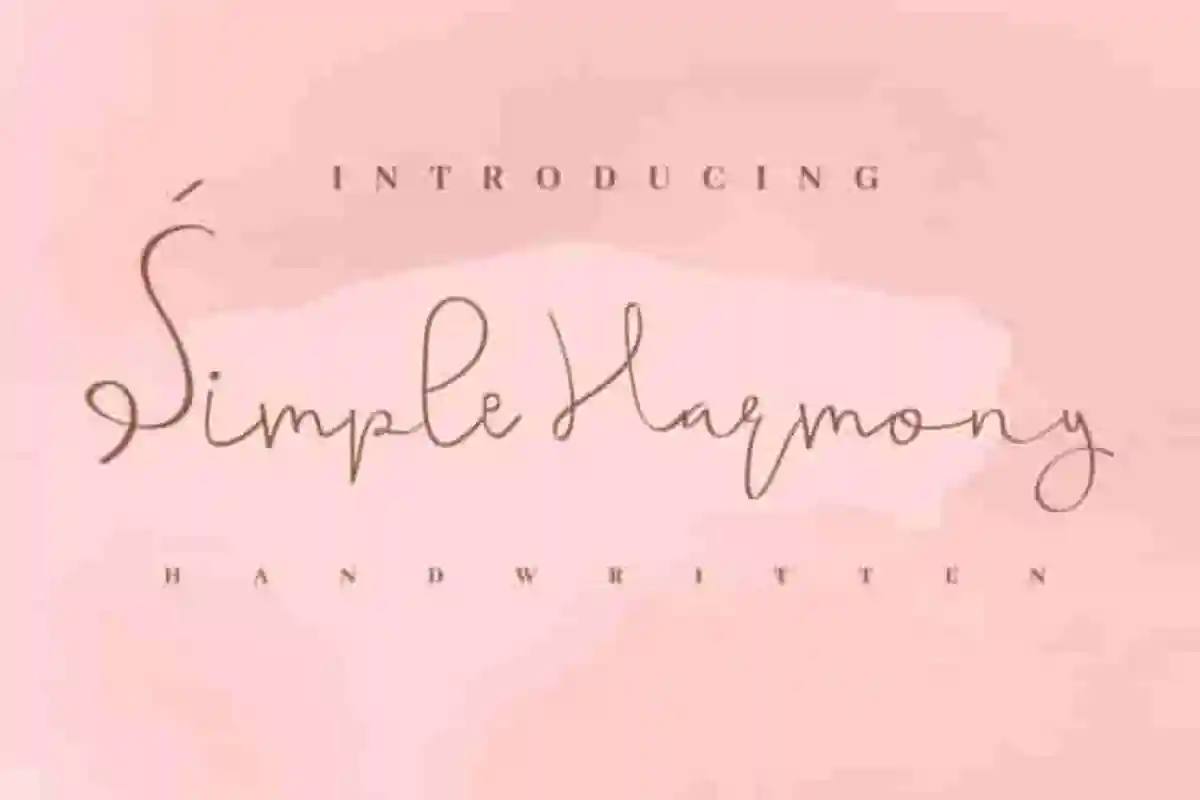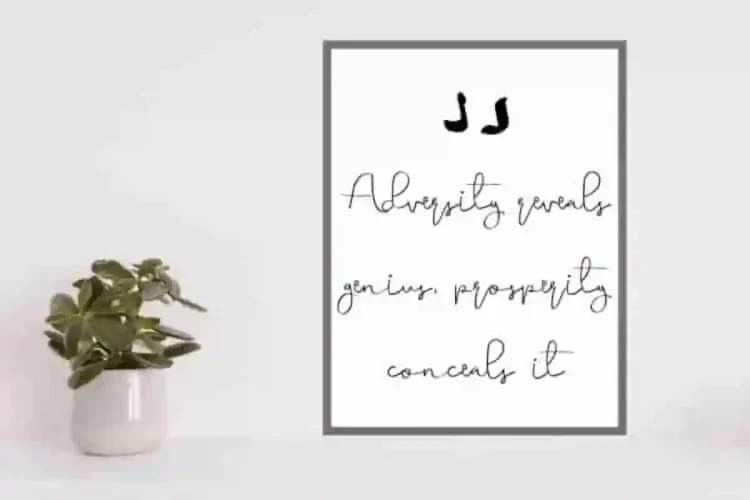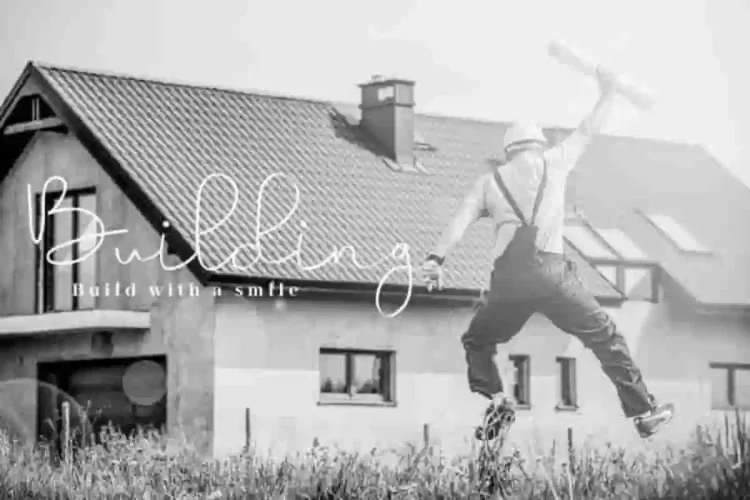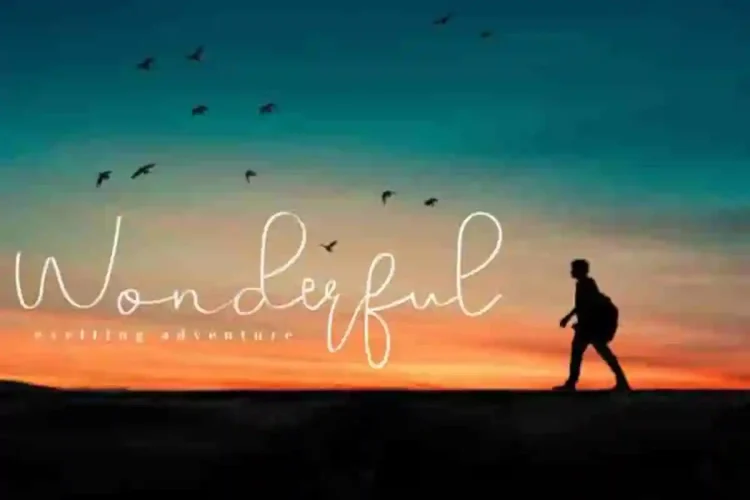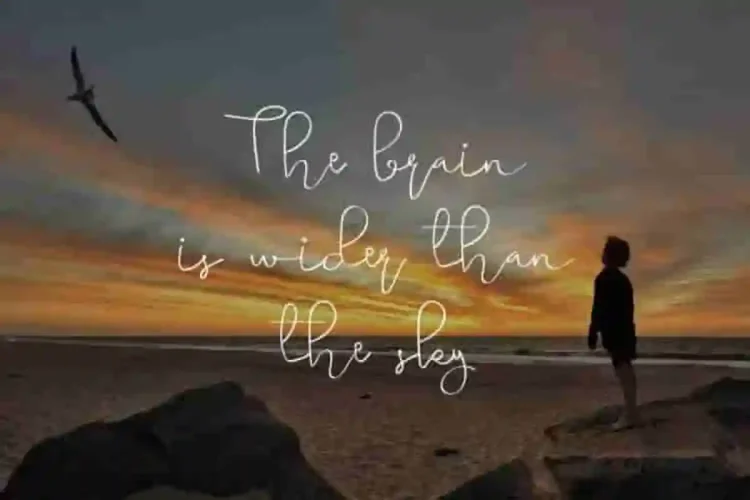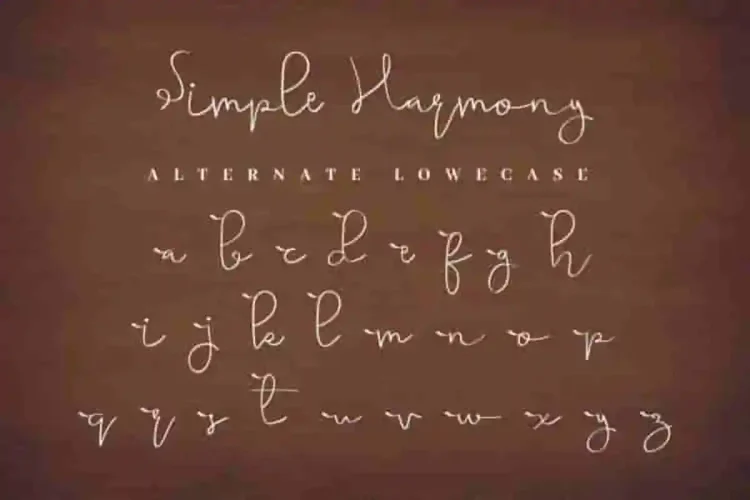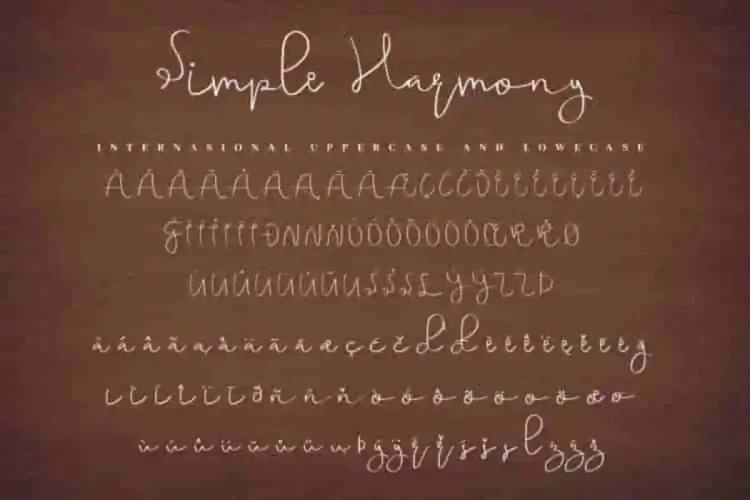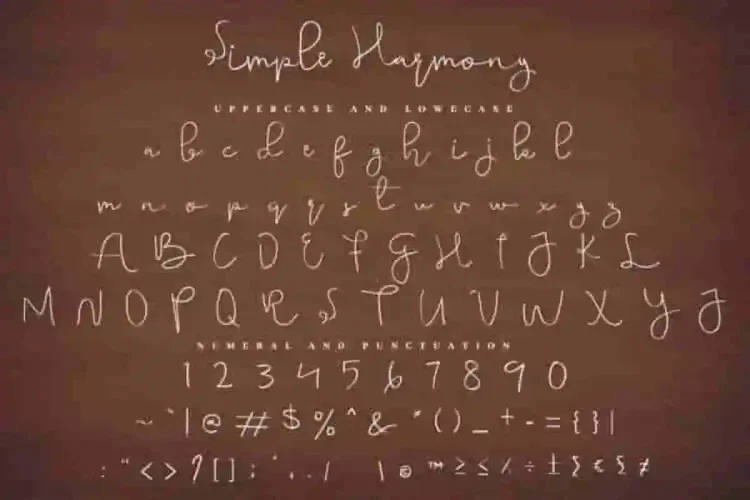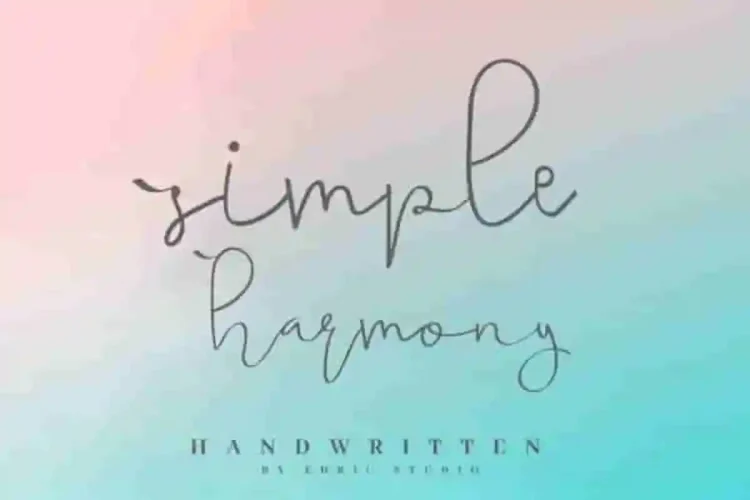
Simple Harmony Handwritting Font
Welcome aboard. Introducing the latest of our baby font : Simple Harmony  .
This is a simple calligraphy font script. It supports most of international language characters. It has a unique glyphs set.
Simple Harmony Font will be awesome for all your projects/ products : cover, banner, social media, magazine, product label, tag, etc
Simple Harmony Calligraphy Font will be awesome for many professionals : musician, event organizer, gardener, photographer, architect etc.
Meet Simple Harmony – a beautifully balanced typeface designed to bring elegance, clarity, and sophistication to your creative projects.